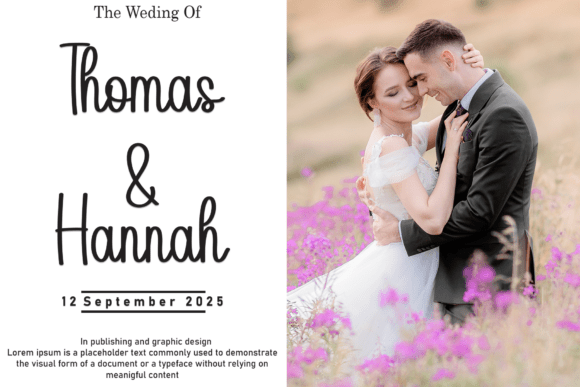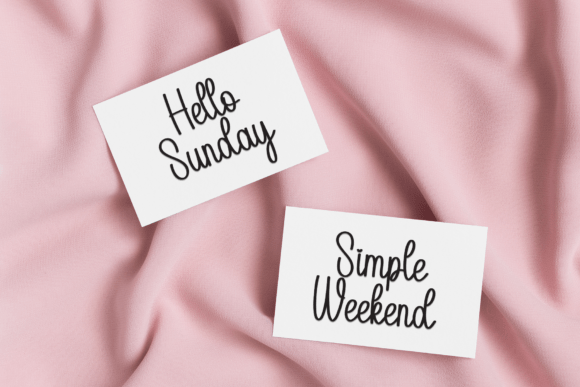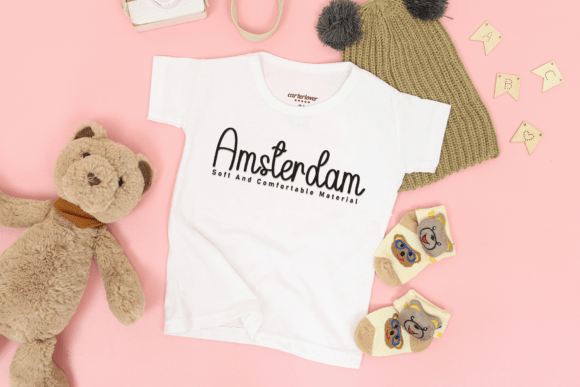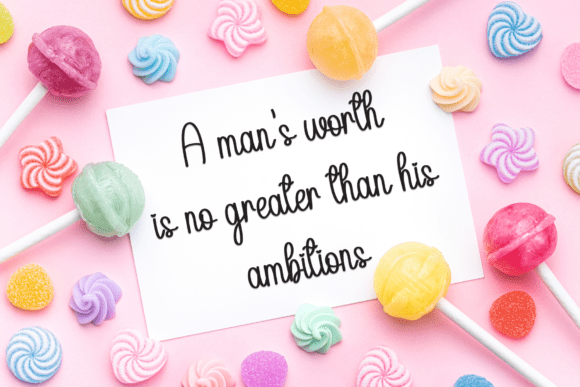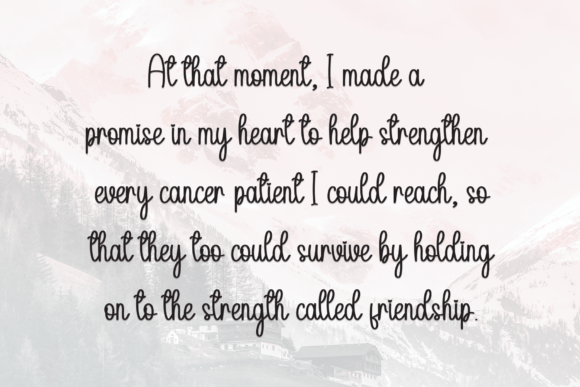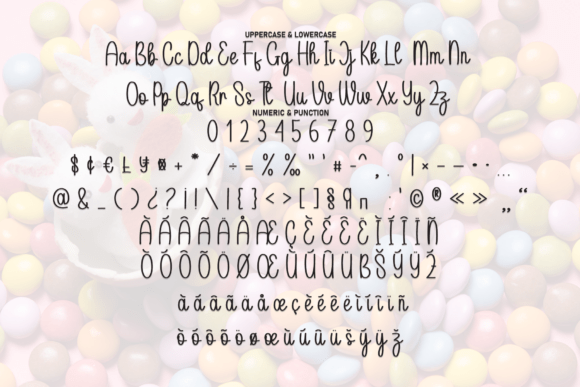
Babycandy Font: Elevate Your Designs with Artistic Flair and Contemporary Elegance
In the world of typography, few fonts manage to strike a balance between artistic expression and modern sophistication. Babycandy Font is one such exceptional typeface that brings a unique blend of fluid brush strokes, dynamic curves, and expressive letterforms to the table. This stylish script font is designed to capture the essence of hand-painted calligraphy with a contemporary twist, making it an ideal choice for designers and crafters looking to add a creative and sophisticated touch to their work.
The Artistic Charm of Babycandy Font
Babycandy Font is more than just a typeface; it’s an artistic statement. Its fluid brush strokes and dynamic curves give it a natural, hand-painted feel that is both vibrant and engaging. Each letterform is meticulously crafted to convey a sense of movement and elegance, making it perfect for designs that require a touch of sophistication. Whether you’re working on a logo, invitation, packaging, or social media graphics, Babycandy Font brings a level of artistic flair that can elevate your designs from ordinary to extraordinary.
Key Features of Babycandy Font
- Fluid Brush Strokes: The font features smooth, fluid brush strokes that give it a natural, hand-crafted look.
- Dynamic Curves: The dynamic curves in Babycandy Font add a sense of movement and elegance to the letterforms.
- Expressive Letterforms: Each letterform is designed to be expressive and unique, adding a touch of personality to your designs.
- Modern Twist: While the font has a classic, hand-painted feel, it also has a modern twist that makes it suitable for contemporary designs.
- Versatility: Babycandy Font is versatile and can be used for a variety of design projects, including logos, invitations, packaging, and social media graphics.
Applications of Babycandy Font
Babycandy Font’s versatility makes it suitable for a wide range of design applications. Here are some of the ways you can use this beautiful font:
- Logos: Create a memorable and stylish logo for your brand with Babycandy Font. Its unique letterforms and elegant curves make it perfect for branding and identity designs.
- Invitations: Add a touch of sophistication and elegance to your invitations, whether it’s for a wedding, birthday party, or corporate event.
- Packaging: Use Babycandy Font to create eye-catching packaging designs that stand out on store shelves. Its vibrant and artistic feel makes it ideal for product packaging.
- Social Media Graphics: Elevate your social media graphics with Babycandy Font. Whether you’re creating promotional graphics, quotes, or infographics, this font adds a creative and sophisticated touch.
Why Choose Babycandy Font?
With so many fonts available, why choose Babycandy Font for your designs? Here are a few compelling reasons:
- Unique and Artistic: Babycandy Font offers a unique and artistic look that sets it apart from more traditional typefaces.
- Highly Versatile: The font’s versatility makes it suitable for a wide range of design applications, from logos and invitations to packaging and social media graphics.
- Elegant and Sophisticated: Babycandy Font brings an level of elegance and sophistication to your designs, making it perfect for projects that require a touch of class.
- Easy to Read: Despite its artistic feel, Babycandy Font is highly legible, making it suitable for both headlines and body text.
Tips for Using Babycandy Font
To get the most out of Babycandy Font, here are a few tips:
- Pair with Complementary Fonts: Pair Babycandy Font with complementary fonts to create visual interest and hierarchy in your designs.
- Experiment with Colors: Don’t be afraid to experiment with different colors to find the perfect match for your design. Babycandy Font looks great in bold, vibrant colors as well as more subtle, pastel shades.
- Use for Headlines and Titles: While Babycandy Font is highly legible, it’s best used for headlines and titles where its artistic flair can shine.
In conclusion, Babycandy Font is a stylish script font that brings a unique blend of artistic flair and contemporary elegance to the table. Its fluid brush strokes, dynamic curves, and expressive letterforms make it perfect for a wide range of design applications, from logos and invitations to packaging and social media graphics. With its natural flow and vibrant character, Babycandy Font delivers both visual impact and versatility, making it an excellent choice for designers and crafters looking to elevate their designs.